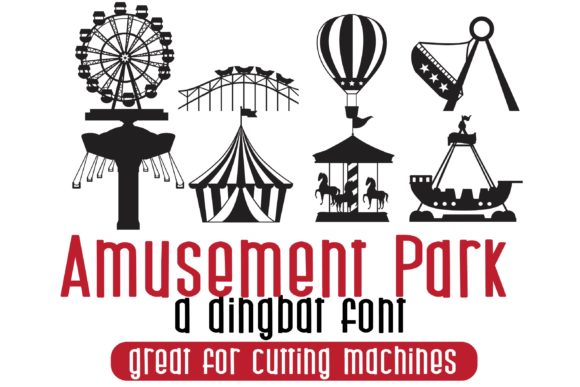
The Thrill of Amusement Park Font: A Designer’s Delight
I still remember the design project that led me to discover the Amusement Park font. I was working on a client’s carnival-themed brochure, and I was struggling to find the perfect font that would capture the fun and excitement of the carnival. The client wanted something that would make their brochure stand out, but I was stuck with the usual serif and sans-serif fonts. That’s when I stumbled upon Amusement Park font, and it was love at first sight! 🎉
- ✨ The font is a fun dingbats collection that celebrates everything you find at the carnival, from hot air balloons to Ferris wheels and roller coasters.
- ✅ The glyphs are intricately designed, making it perfect for creating visually appealing graphics and designs.
- 🎊 The font is versatile and can be used for various design projects, from brochures and posters to social media graphics and crafts.
While I love the Amusement Park font, there are a few quirks to be aware of: 🤔
- ⚠️ The font is a dingbats collection, so it’s not suitable for body text or long paragraphs.
- ⚠️ Some glyphs may not be suitable for small font sizes, as they can become pixelated or lose detail.
The Designer Inspiration Behind Amusement Park Font
The Amusement Park font was inspired by the magic and excitement of the carnival. The designer wanted to create a font that would capture the thrill and wonder of the carnival experience, with glyphs that would evoke the feeling of excitement and joy. 🌟
Q: What type of projects is Amusement Park font suitable for?
A: Amusement Park font is perfect for designing carnival-themed graphics, brochures, posters, social media graphics, and crafts.